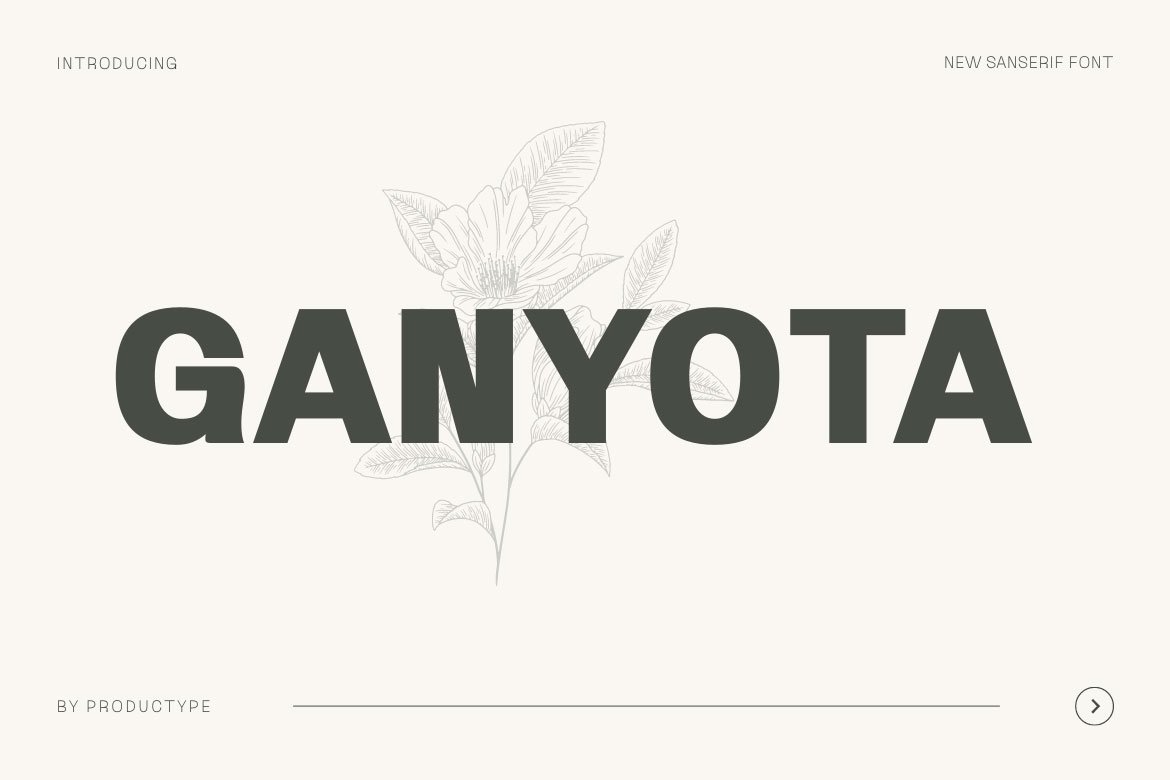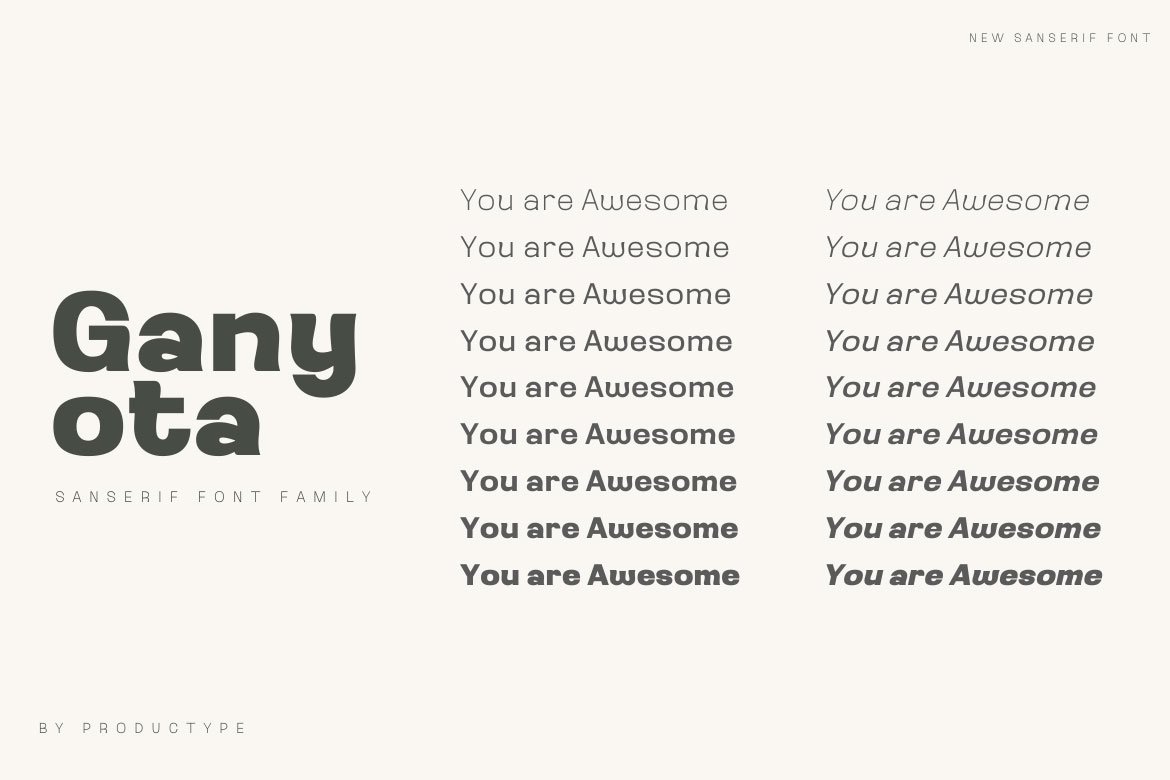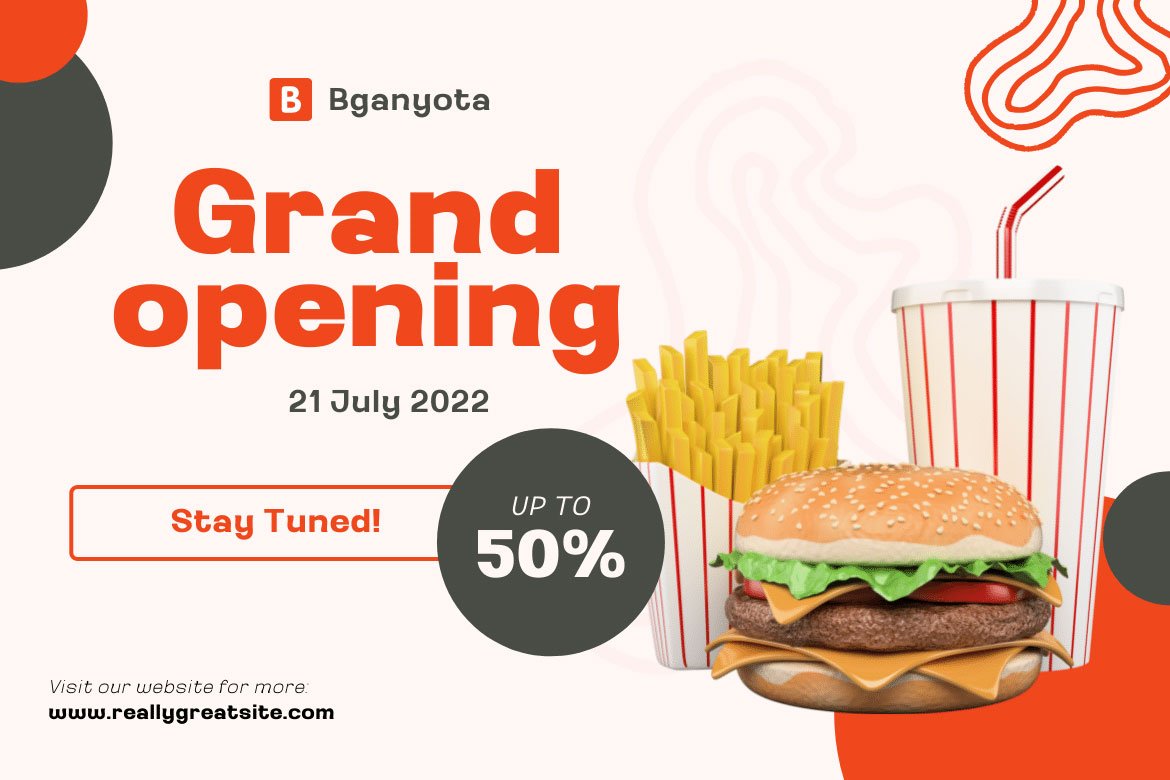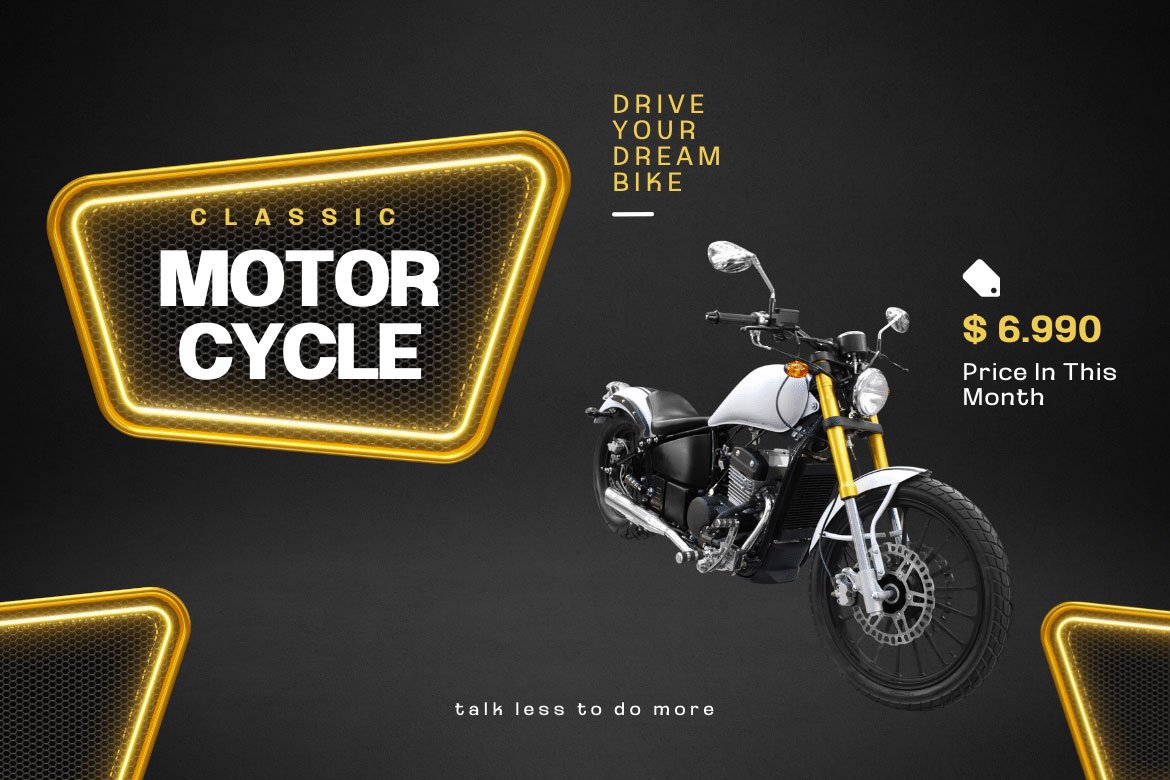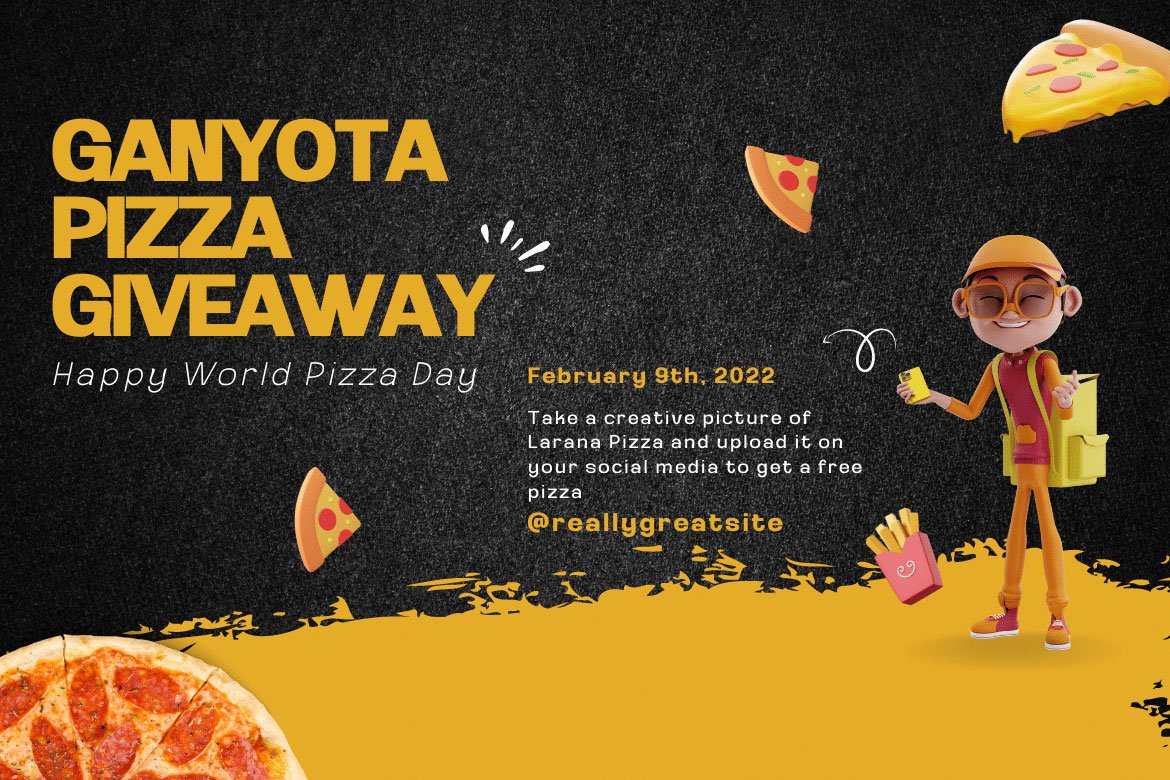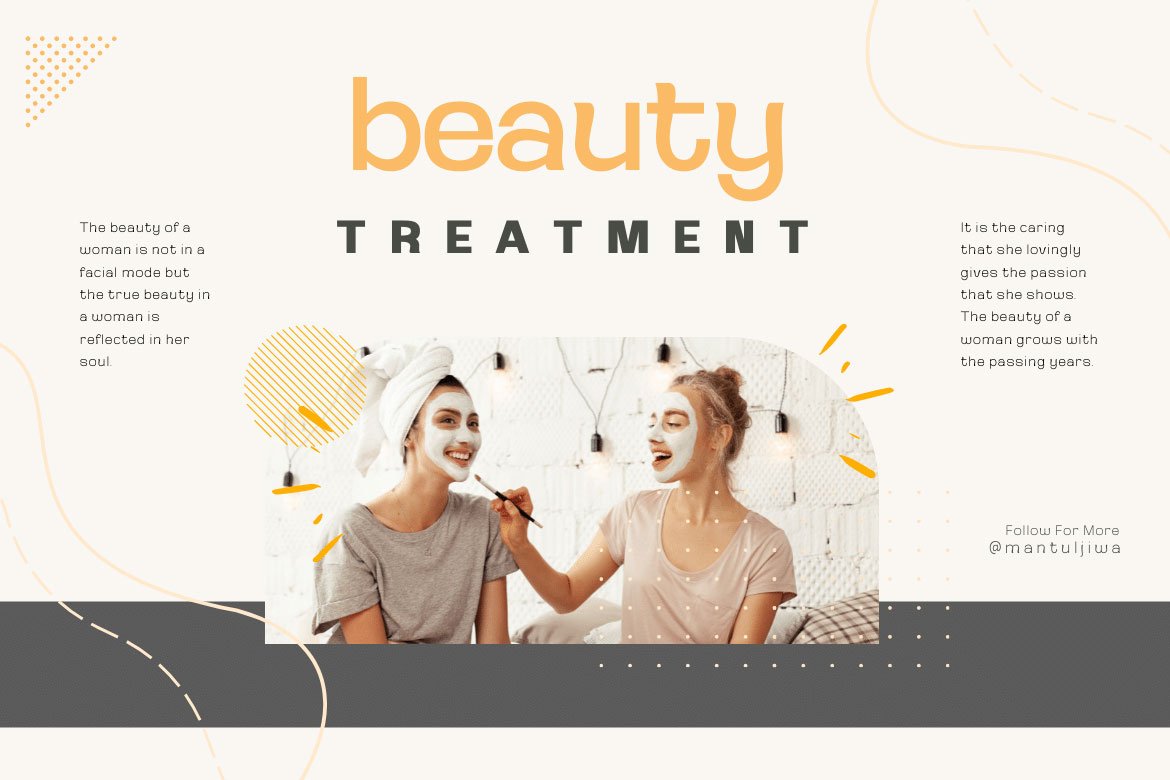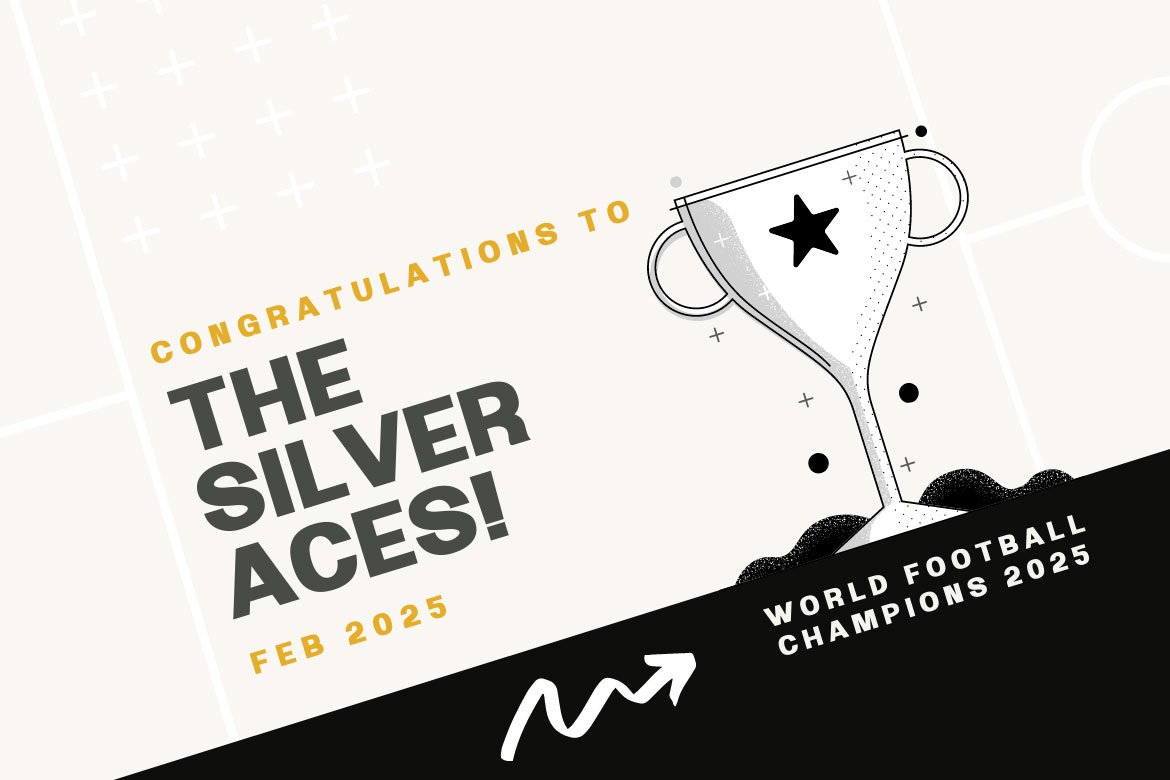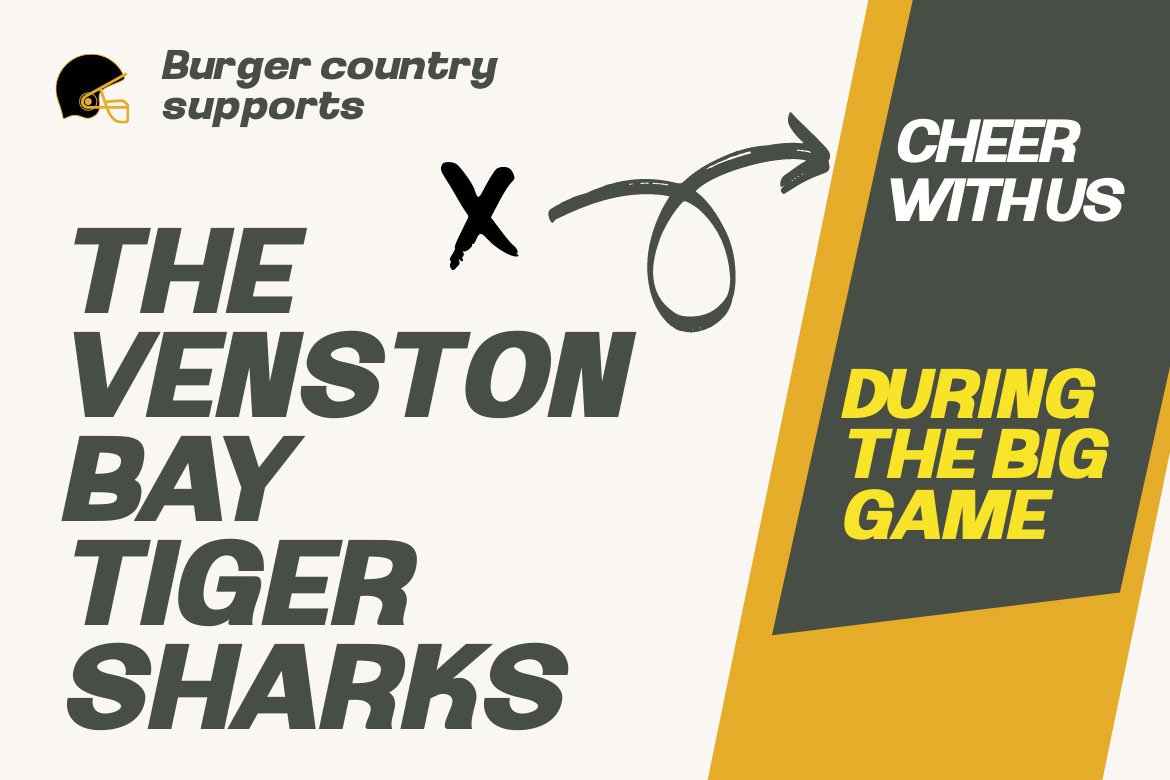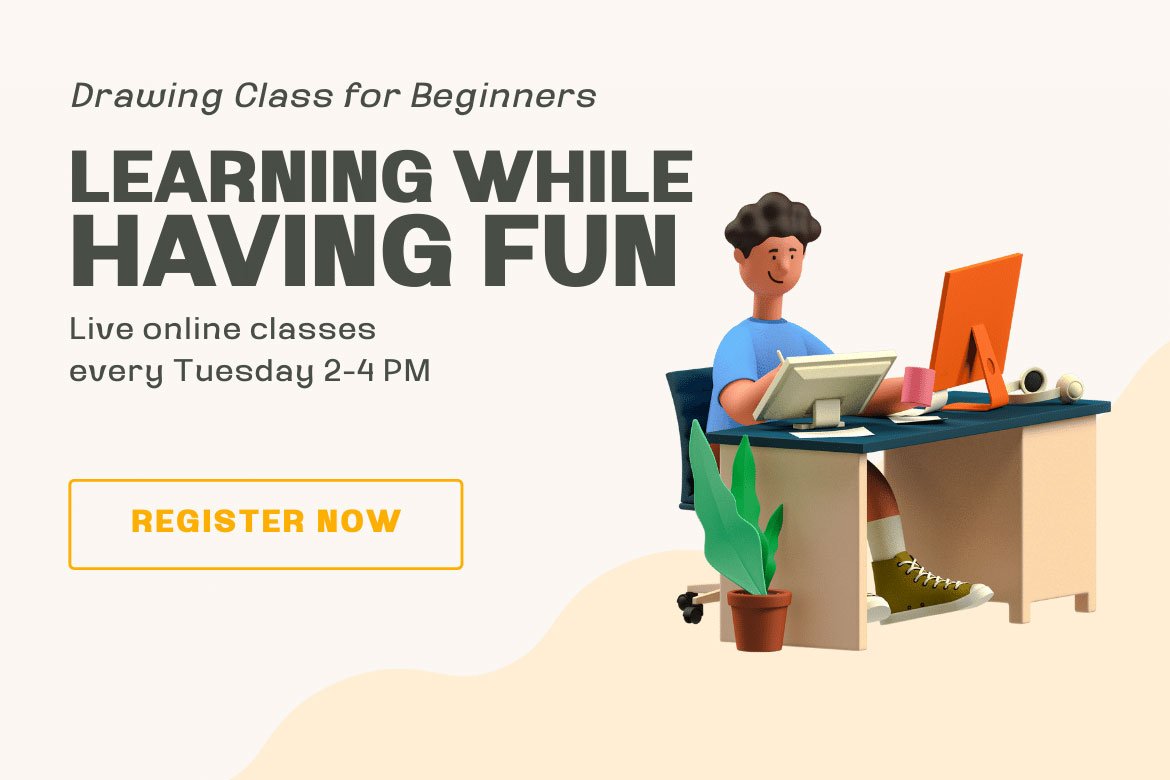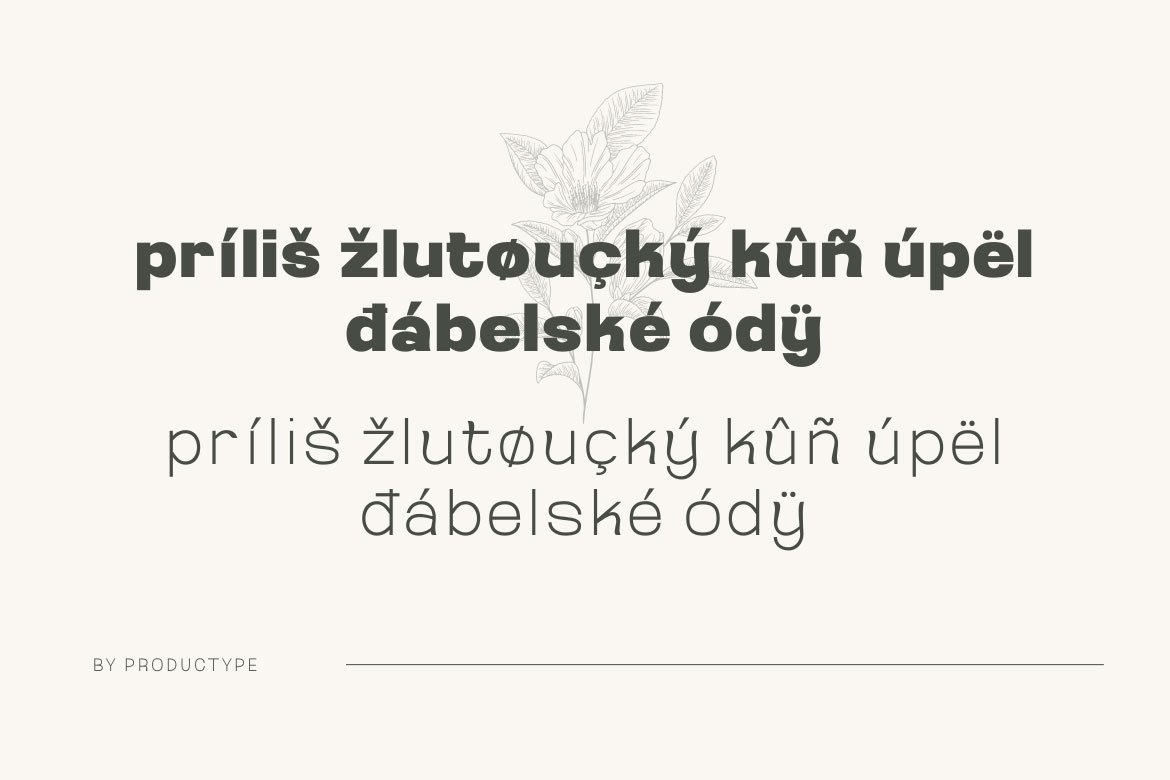
Ganyota – Sans Serif Family Font
Ganyota is a beautiful sans-serif typeface that’s perfect for large displays, small text, and creative typographic creations. This font is ideal for adding contrast, hierarchy, and impact to your branding, developing online adverts, and producing quotations to post on Instagram, among other things.
With sixteen families to choose from, this typeface will make it easy for you to build projects. Use it immediately to make your project appear lovely and attractive.